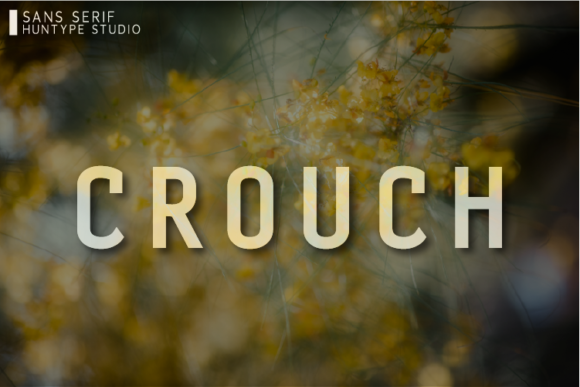
The Elusive Font: My Journey with Crouch
I still remember the project – a elegant wedding invitation suite that required a font as refined as the couple’s taste. As I scoured through font libraries, I stumbled upon Crouch, a distinct, elegant sans serif font that seemed to tick all the boxes. Its traditional influences blended seamlessly into a contemporary aesthetic, and I was intrigued. In this article, I’ll share my experience with Crouch, its features, and how to make the most of this versatile font.
An Honest Review of Crouch
- ✨ Balanced Latin details: Crouch’s Latin details are meticulously crafted, providing a sense of sophistication and poise.
- ✅ Distinctive contrasts: The font’s subtle contrasts add a touch of elegance, making it perfect for designs that require a refined look.
- 💡 Maximum versatility: Crouch’s clean lines and classic feel make it suitable for a wide range of design projects, from wedding invitations to corporate branding.
While Crouch is an excellent font, it’s not without its quirks. For instance:
- ⚠️ Limited character set: Some users might find the character set a bit limited, particularly when it comes to specialty characters or extended language support.
- 🤔 Glyph accessibility: Depending on the platform or software used, accessing glyphs or stylistic alternates might require a bit of exploration.
The Story Behind Crouch
Crouch was designed with the intention of creating a font that blends traditional influences with a modern aesthetic. The designer aimed to craft a font that would be both elegant and versatile, suitable for a wide range of design projects. While the exact design process is unknown, it’s clear that Crouch was created with attention to detail and a passion for typography.
Q: What type of projects is Crouch best suited for?
A: Crouch is an excellent choice for designs that require an elegant, refined look, such as wedding invitations, corporate branding, and luxury packaging.
Q: Can I use Crouch for body text?
A: While Crouch is legible, it’s primarily designed for display text. For body text, you may want to consider a font with more traditional proportions and better readability.
Q: Does Crouch support OpenType features?
A: Yes, Crouch supports OpenType features, including stylistic alternates and glyphs. You can access these features in compatible software, such as Adobe Creative Cloud applications.
Q: Is Crouch suitable for digital use?
A: Yes, Crouch is designed to be legible on digital screens, making it suitable for web design, social media graphics, and other digital applications.